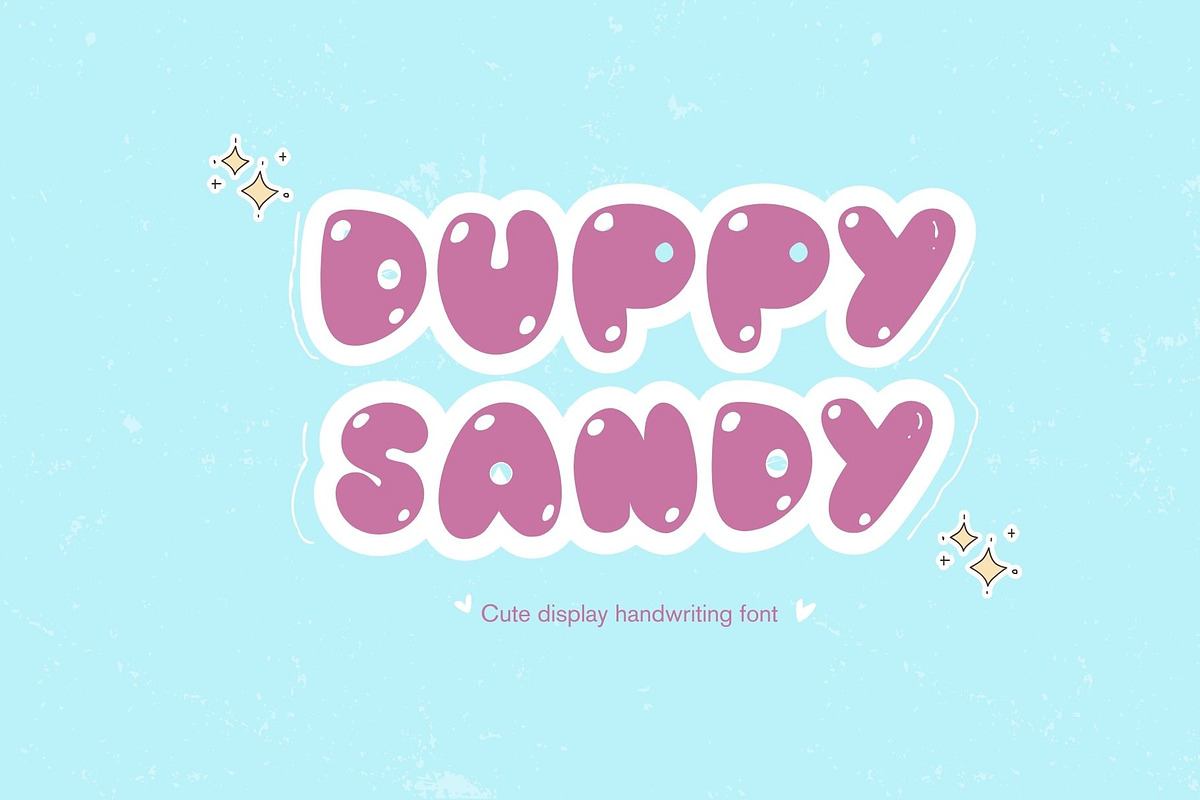
Duppy Sandy Font Free Download is a bold and playful display typeface with a fun, slightly spooky twist. Featuring chunky, irregular letterforms and a beachy, hand-crafted vibe, it’s perfect for Halloween designs with a twist, surf-themed posters, party invites, children’s book titles, and creative branding that needs a bit of character and edge.
Using the Duppy Sandy Font Free Download adds personality and energy to your designs. Whether you're creating seasonal merch, spooky-summer event graphics, or quirky packaging, this font brings a sense of fun, movement, and uniqueness that grabs attention.